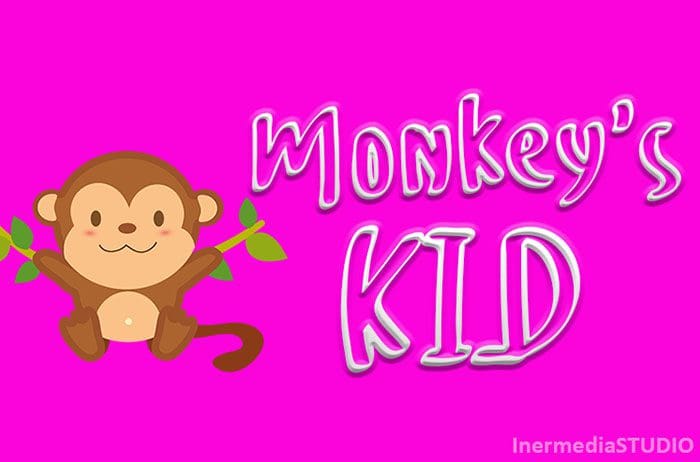
Free Monkey Display Font
Monkey Display Font
Free Monkey Display font with an incredibly friendly feel. Whether you’re looking for fonts for Instagram or calligraphy scripts for DIY projects, Monkey will turn any creative idea into a true piece of art! Designed this font by Inermedia Studio. You can also search more free Display Fonts.